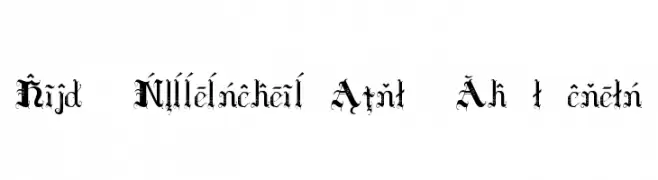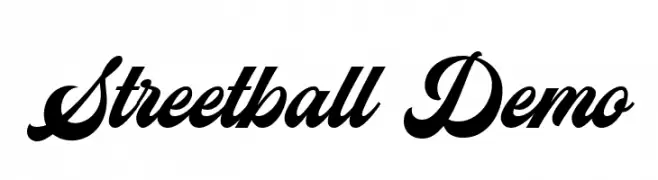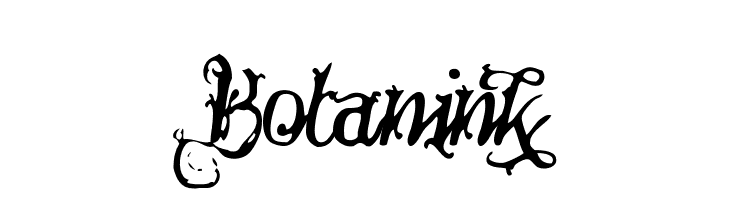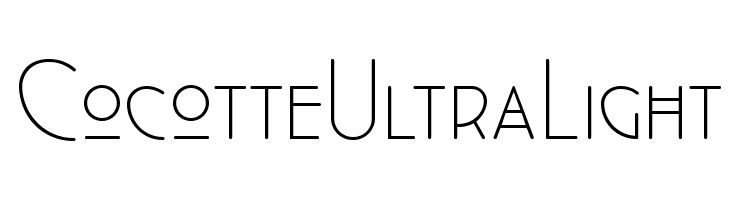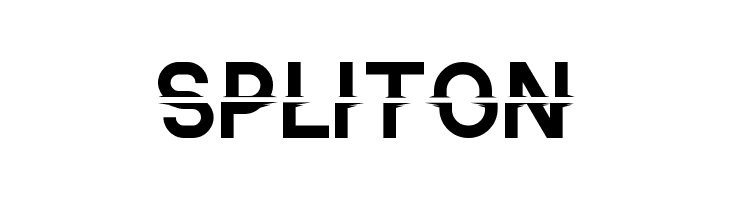
A modern, geometric sans-serif font with clean lines and balanced proportions.
An ornate and decorative blackletter-style font with intricate flourishes.
A bold, modern font with high contrast and decorative style.
A bold, distressed font with a fragmented, dynamic appearance.
A bold, flowing script font with dynamic and energetic style.
A dynamic and expressive script font with fluid, cursive strokes.